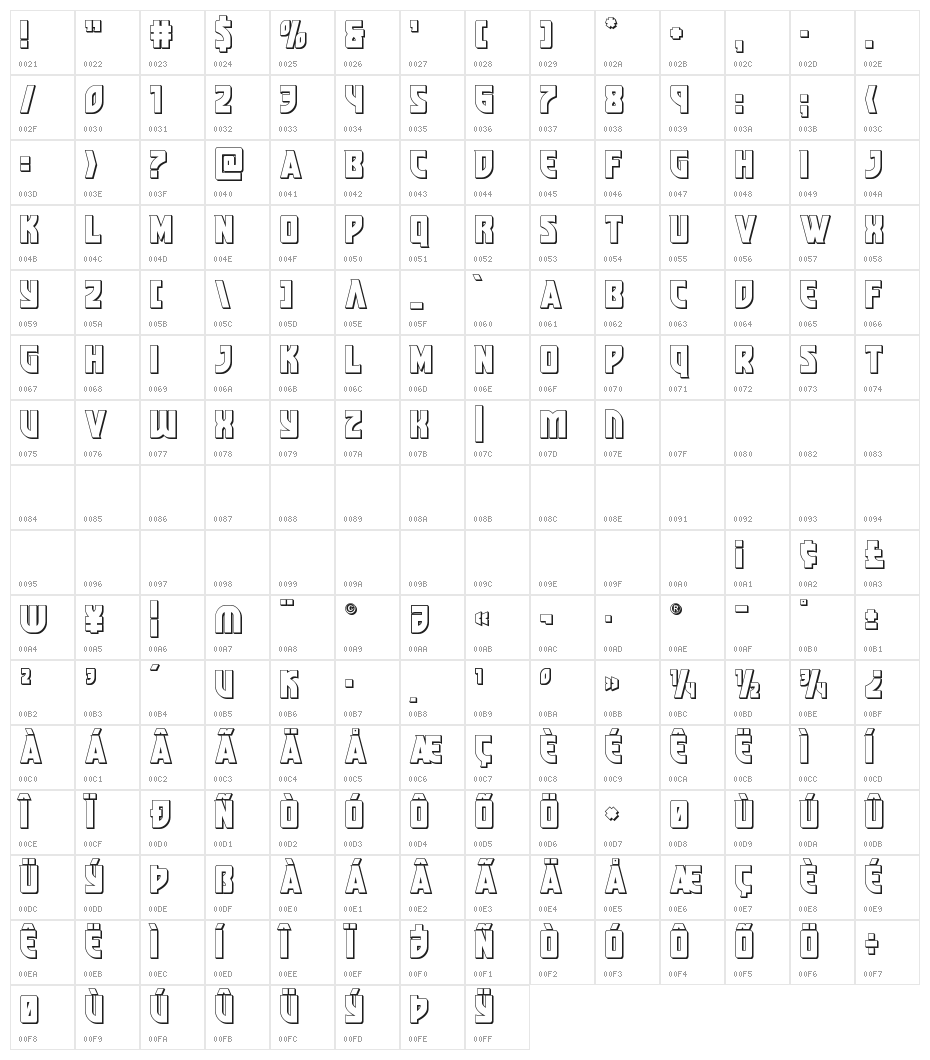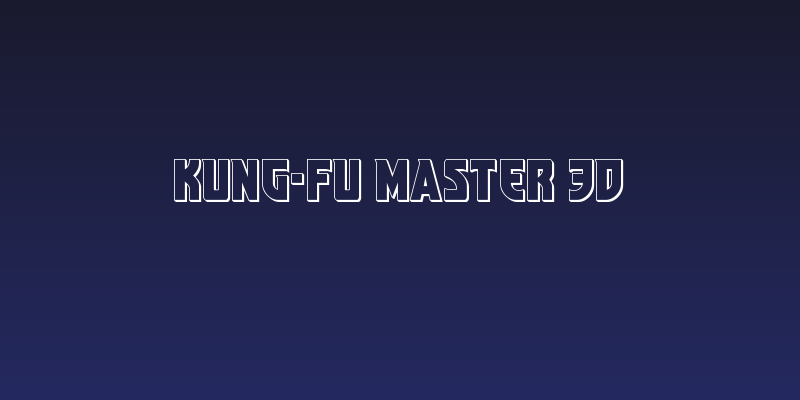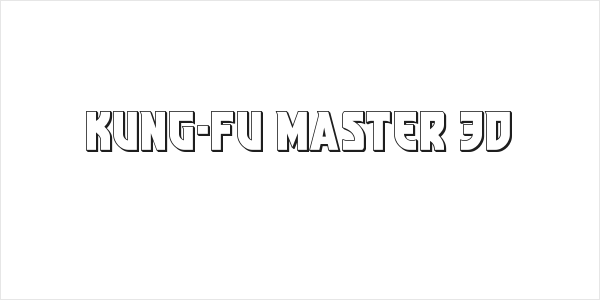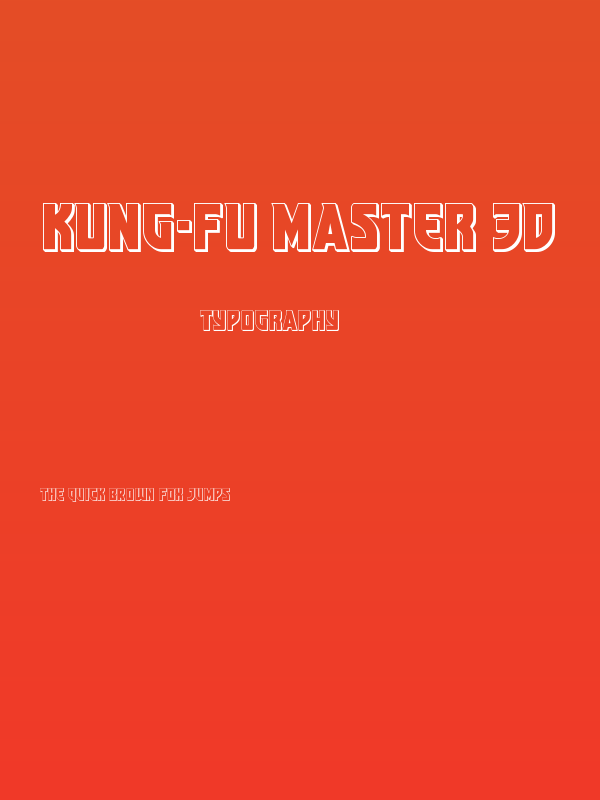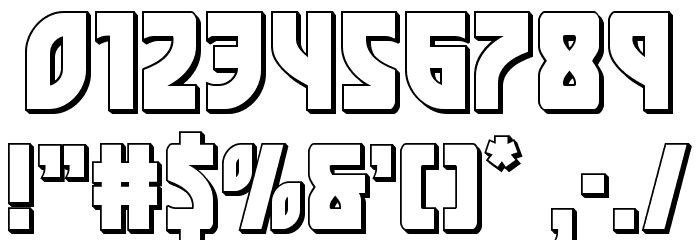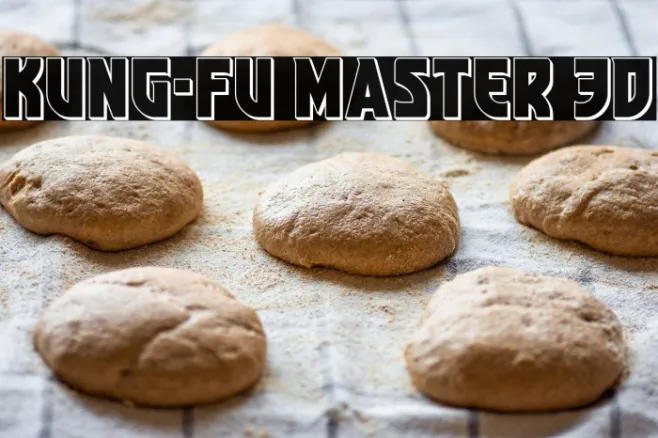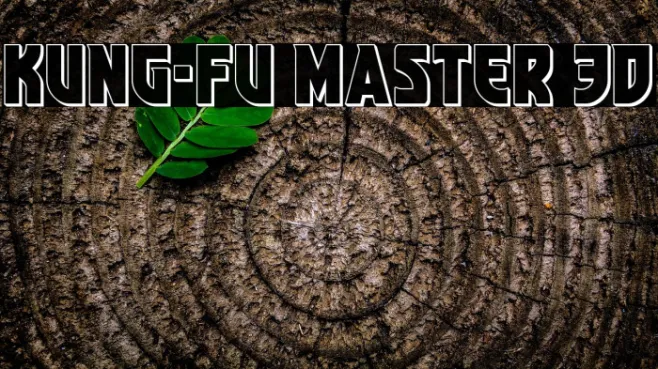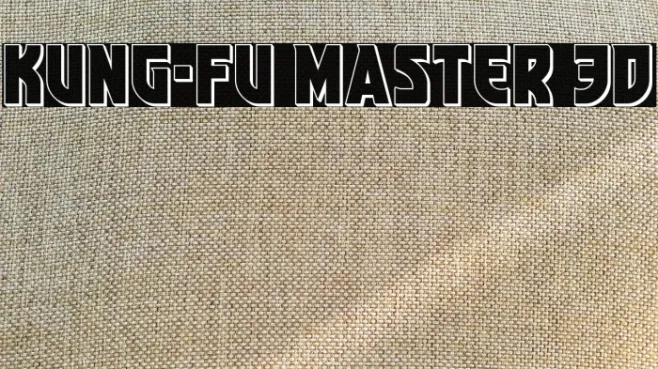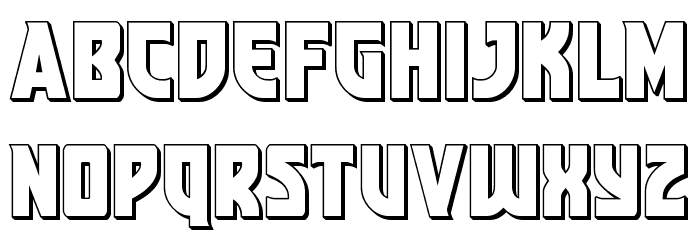
Kung-Fu Master 3D Font
Kung-Fu Master 3D Description
This bold and dynamic font features a three-dimensional effect that gives each character a sense of depth and movement. The letters are blocky and geometric, with sharp edges and a strong presence. The design incorporates a shadow effect that enhances the 3D appearance, making it stand out on any surface. The uppercase and lowercase letters maintain a consistent style, while the numbers and special characters are crafted to match the bold aesthetic. This font is ideal for projects that require a striking and impactful visual element.
| Proposed Projects | Ideal for video game titles, movie posters, and branding that requires a bold, eye-catching design. |